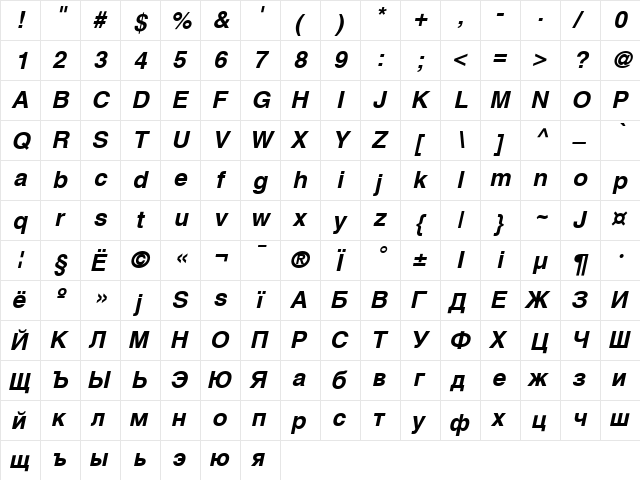
AGHelveticaCyr BoldOblique
Design Context for AGHelveticaCyr Typeface
AGHelveticaCyr is a composed and adaptable typeface that performs quietly and consistently across a wide range of design contexts. The dynamic lean of this cut emphasises speed and emphasis in any layout. Its bold stroke weight gives it real presence on the page.